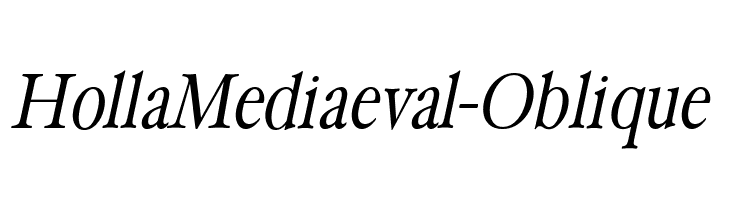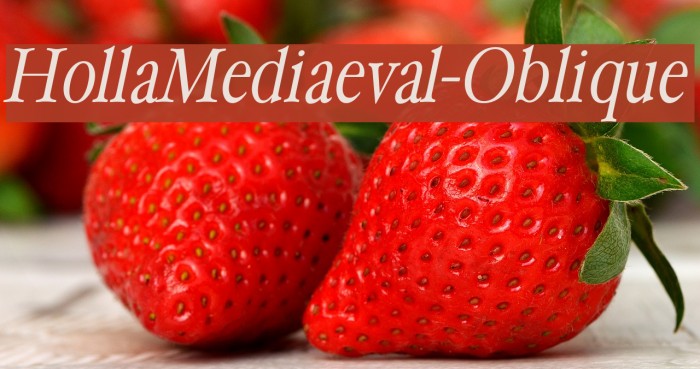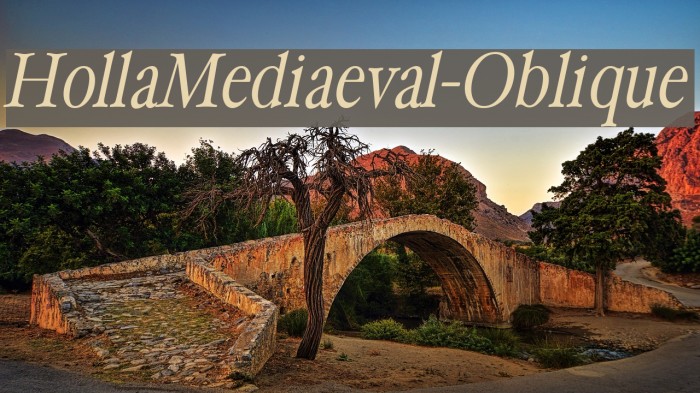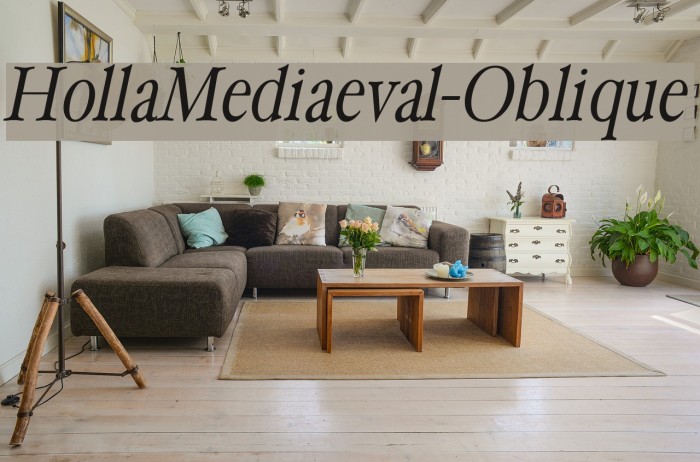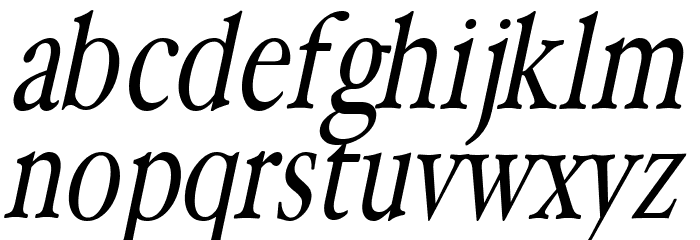
HollaMediaeval-Oblique Font
HollaMediaeval-Oblique Description
This font exudes a classic elegance with its oblique style, characterized by a gentle slant that adds a sense of motion and sophistication. The serifs are pronounced yet refined, providing a traditional feel while maintaining readability. The uppercase letters are tall and stately, while the lowercase letters are more compact, offering a balanced contrast. The numerals are distinct and clear, making them suitable for both text and display purposes. Special characters are thoughtfully designed, ensuring consistency across the font. Overall, this font combines a historical aesthetic with modern usability, making it versatile for various applications.
A classic oblique serif font with elegant slant and refined serifs from Uncategorized fonts.
- Proposed Projects: Ideal for book covers, formal invitations, historical documents, and branding that requires a touch of elegance.
- Overall Style: Classic